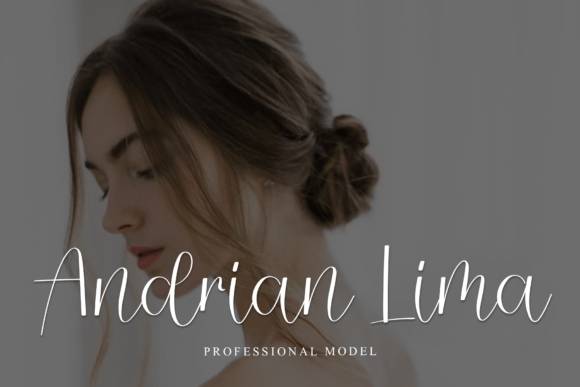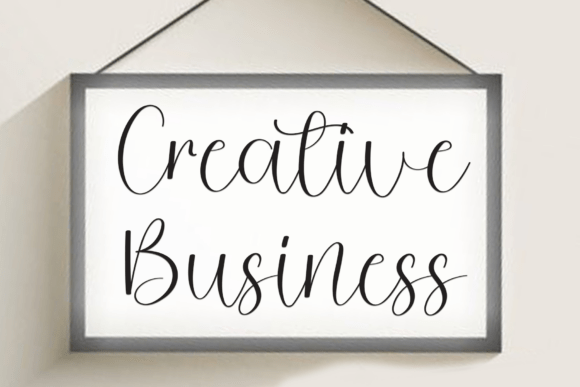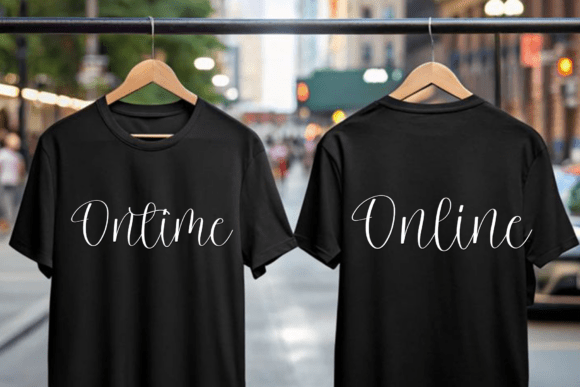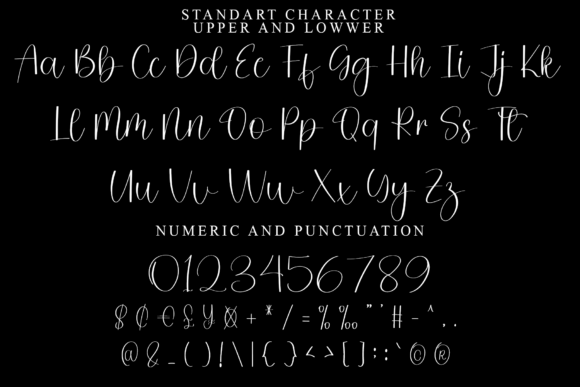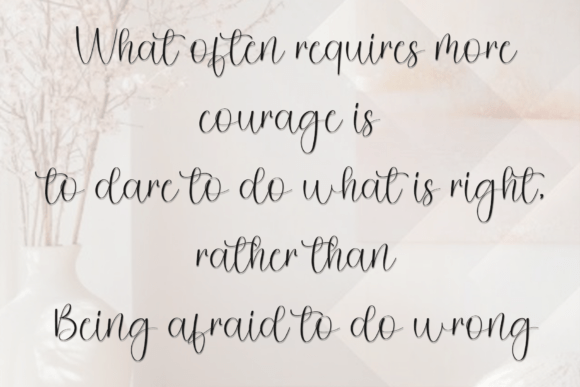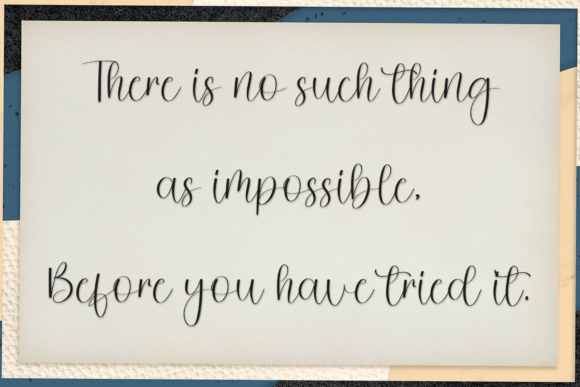
Introduction to Queen Christmas Font
As a designer, there’s nothing quite like the thrill of discovering a new font that sparks creativity and inspires your next project. I still remember the moment I stumbled upon the Queen Christmas Font – its unique strokes and soft touch immediately caught my attention, and I knew I had to learn more. This beautiful font is more than just a pretty face; it’s a valuable resource for designers looking to add a touch of elegance and whimsy to their work.
Whether you’re working on a festive holiday project, a wedding invitation, or a children’s book, the Queen Christmas Font is the perfect addition to your design toolkit. Its versatility and high-quality design make it a must-have for any creative project, and the fact that it’s available for free download is the icing on the cake.
With its transparent background and compatibility with a range of applications, the Queen Christmas Font is a game-changer for designers looking to elevate their work and connect with their audience on a deeper level.
Key Features of Queen Christmas Font
- High-quality, unique design perfect for creative projects, especially Christmas-themed designs.
- Unique characteristics: elegant, cursive script, and festive design elements, making it perfect for Christmas-themed designs and creative projects.
Honest Review: Queen Christmas Font
As a designer, I’ve had the chance to work with numerous fonts, and I’m always on the lookout for high-quality resources that can elevate my creative projects. The Queen Christmas Font is one such find that has caught my attention.
Here are some of the things that I like about this font:
- ✨ The Queen Christmas Font has a beautiful, elegant design that’s perfect for festive and holiday-themed projects.
- ⚠️ The font is limited to a single style, so if you’re looking for a more versatile font with multiple weights and styles, this may not be the best choice.
Overall, I’m impressed with the Queen Christmas Font. It’s a high-quality design resource that’s perfect for holiday-themed projects. With a little caution and planning, it can be a great addition to your design toolkit.
To maximize the use of the Queen Christmas Font, try using it in conjunction with other design elements that complement its elegant and festive vibe. Experiment with different font sizes, colors, and arrangements to create a unique and eye-catching design.
The Queen Christmas Font is ideal for various design projects, including:
- Christmas card designs
- Holiday party invitations
- Seasonal social media graphics
- Gift tag designs